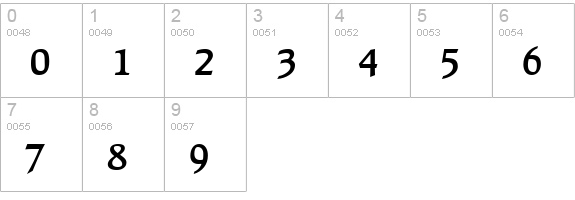
RecognitaBookSSK SemiBold Font Details
RecognitaBookSSK SemiBold is a sub-bold, structured variant in the RecognitaBookSSK typeface family \xE2\x80\x94 well suited to sub-headlines and emphasised passages.
RecognitaBookSSK SemiBold is a visually stunning and versatile font that effortlessly combines elegance and legibility. Its bold and sturdy letterforms make it perfect for a wide range of design projects, from eye-catching headlines to impactful branding materials. This semi-bold variant of RecognitaBookSSK adds an extra touch of impact and emphasis to your texts, making it ideal for highlighting important information or creating a strong visual hierarchy. With its balanced proportions and clean lines, this font exudes a sense of modernity and professionalism. One of the most attractive features of RecognitaBookSSK SemiBold is that it is freely available to download at FontsMarket.com. This means that you can easily access and use this font without any restrictions or limitations. Whether you are a professional graphic designer or a casual user, having access to a high-quality font like RecognitaBookSSK SemiBold can greatly enhance your creative projects. With its extensive character set, RecognitaBookSSK SemiBold supports multiple languages, ensuring that your message can reach a global audience. Its carefully crafted letterforms ensure optimal legibility, even at smaller sizes, making it suitable for both print and digital mediums. Whether you need a font for a corporate brochure, a website design, or a logo, RecognitaBookSSK SemiBold is a reliable choice. Its timeless elegance and versatility make it suitable for a wide range of applications, giving your designs a professional and polished look. In conclusion, RecognitaBookSSK SemiBold is a powerful and visually appealing font that is freely available to download at FontsMarket.com. Its bold and sturdy letterforms, extensive character set, and impeccable legibility make it a valuable asset for any design project. Upgrade your creative endeavors with RecognitaBookSSK SemiBold today!